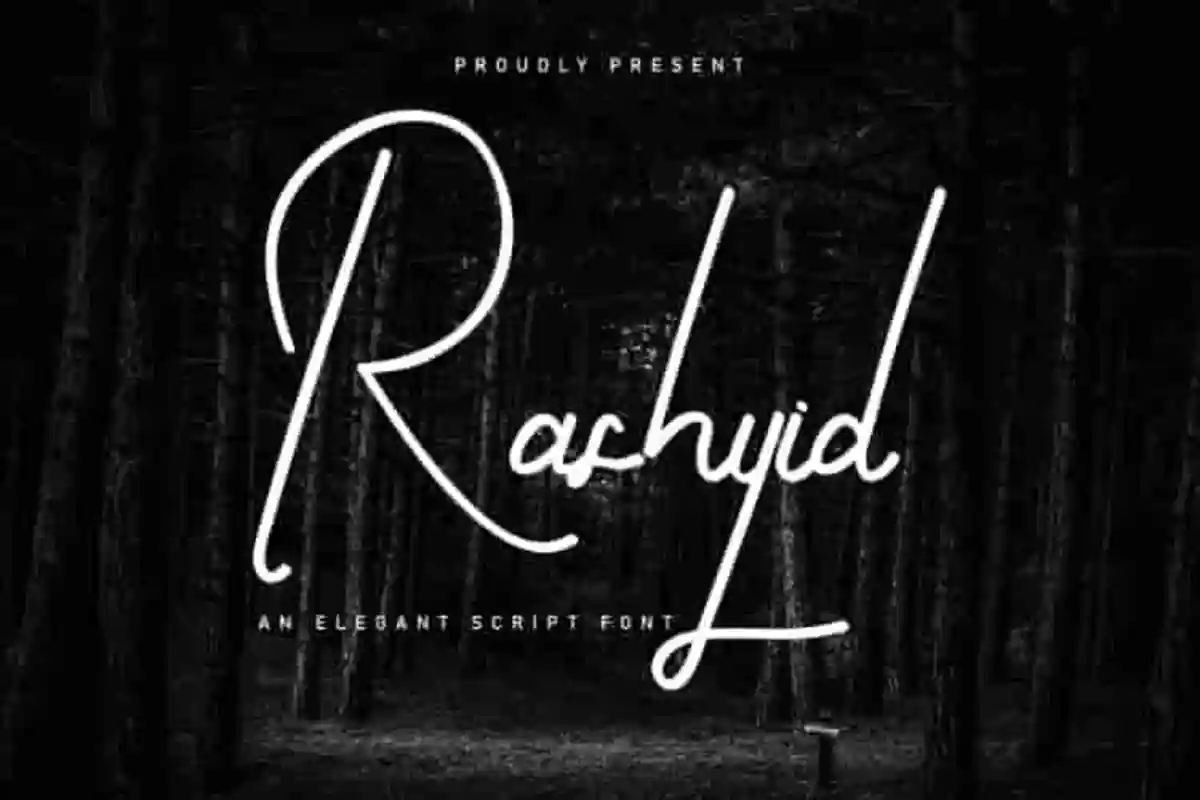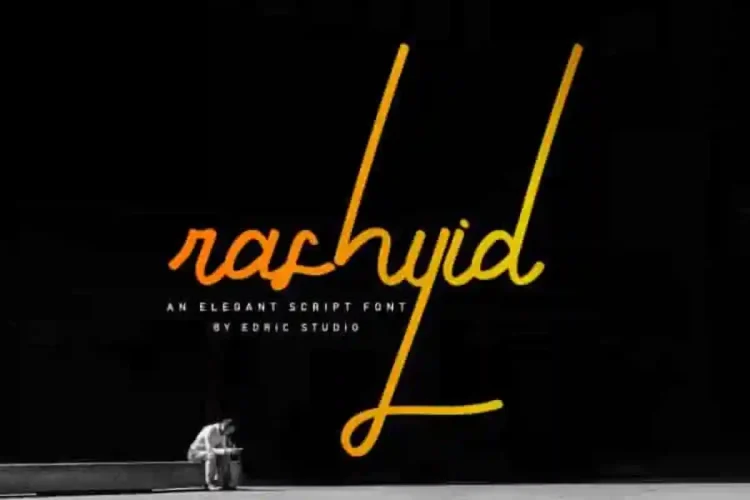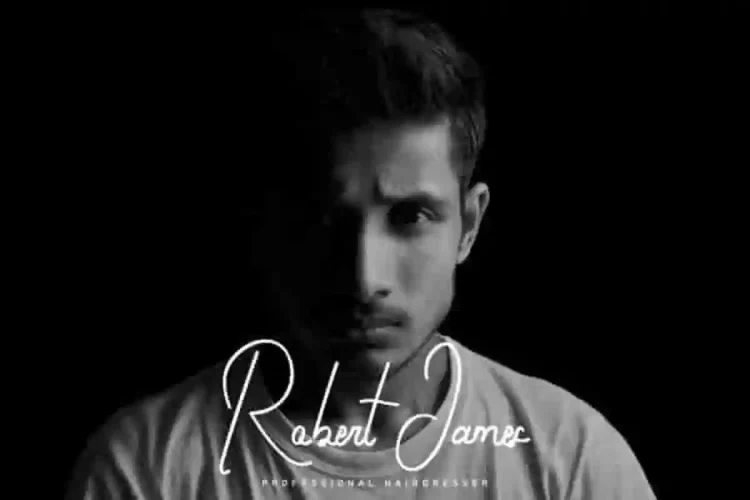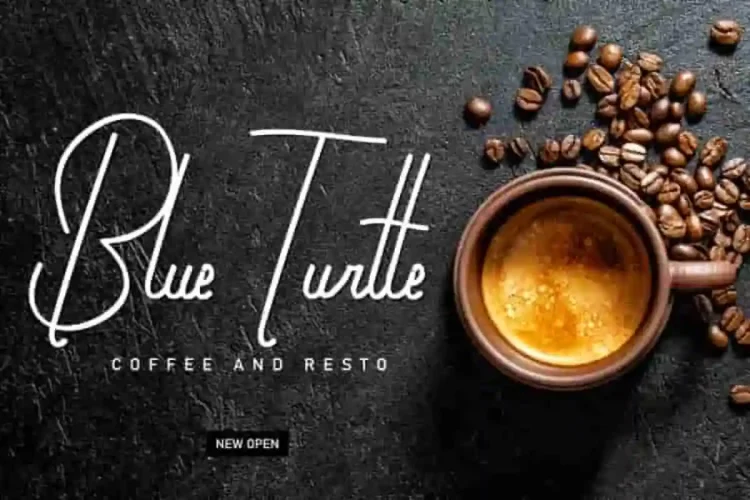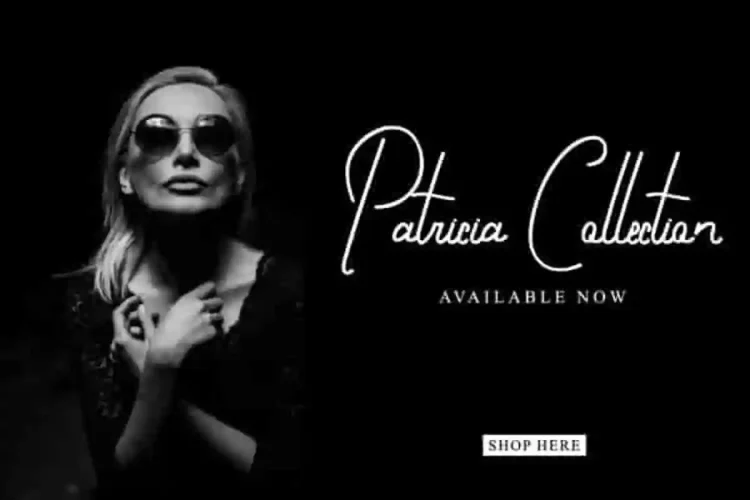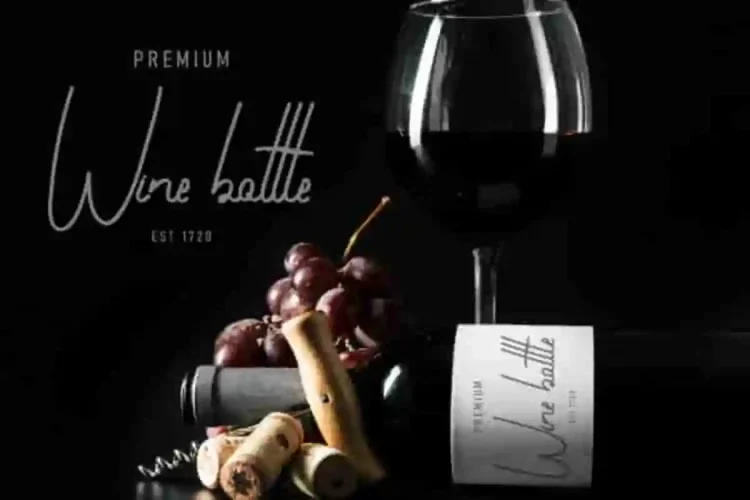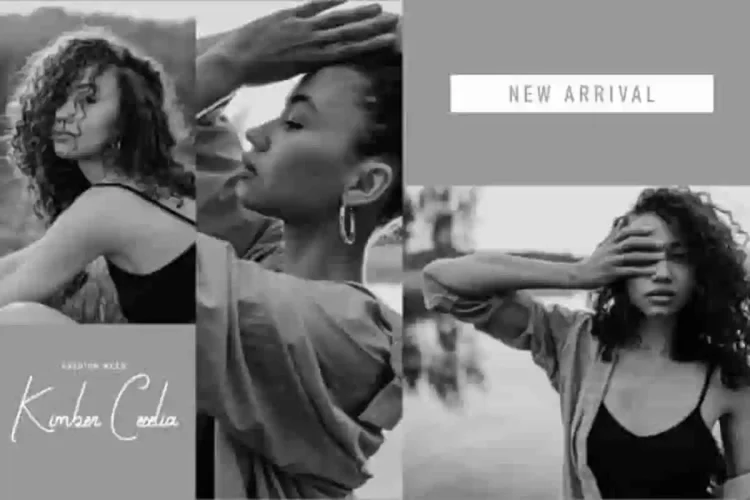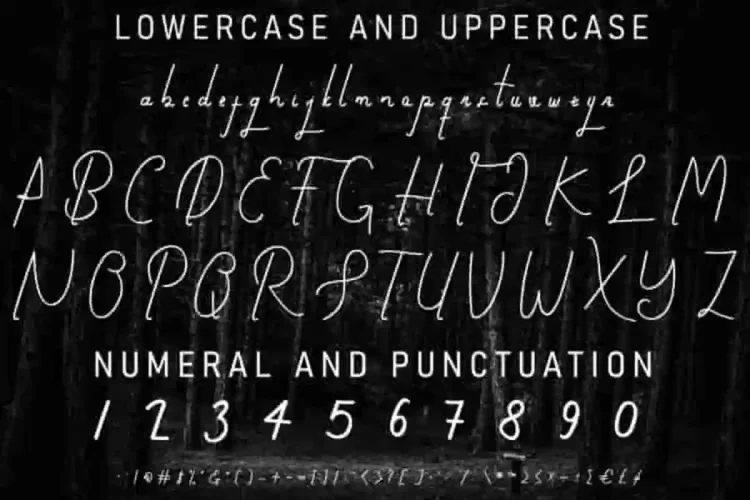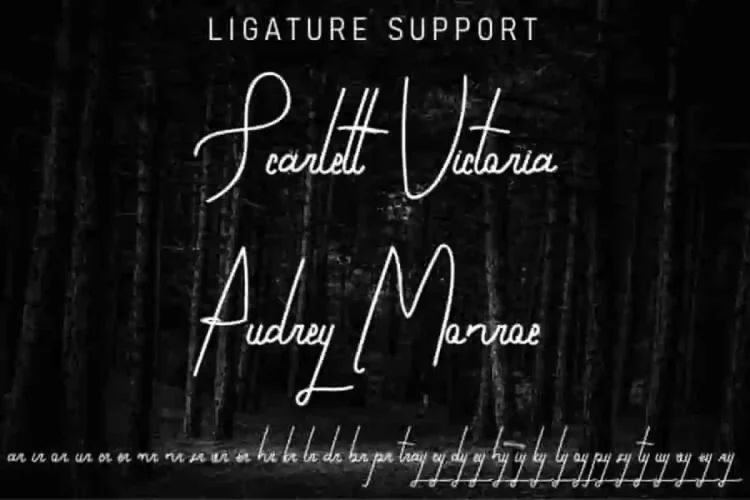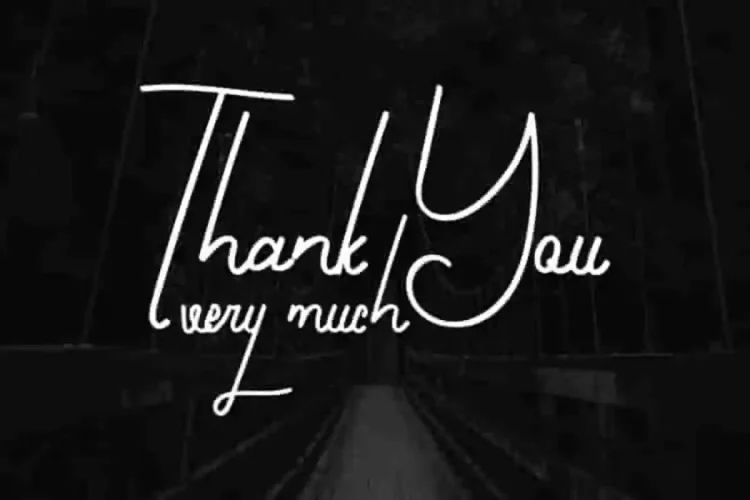
Rashyid Signature Script Font
Rashyid Signature Font is a bold elegant signature font script with elegant handwriting style, handcrafted from our Studio here in Indonesia. Rashyid Signature Font is ideal for logos, branding, stationery, business cards, signage, brochures, invitations, and more. It has a stunning characters set, perfectly managed with well spaced and kerning.